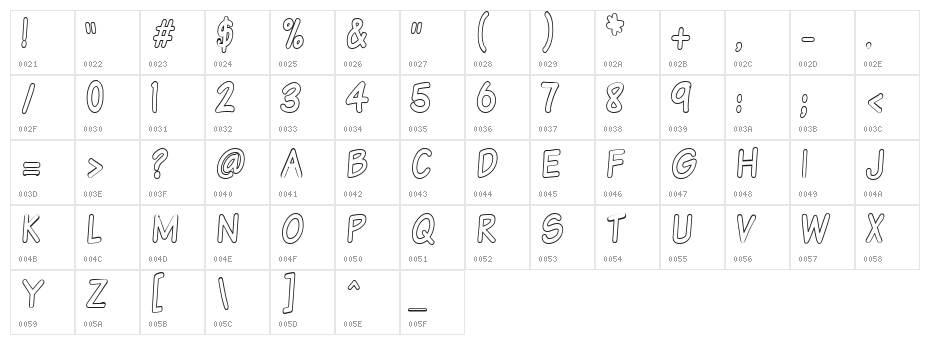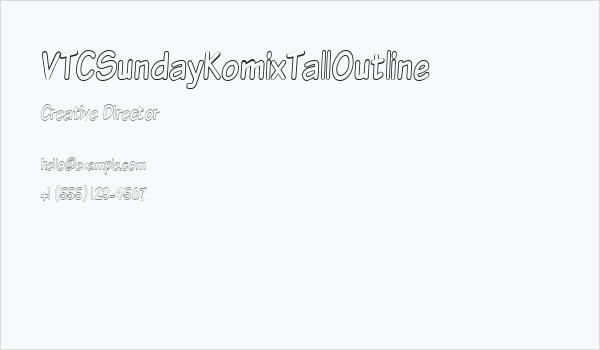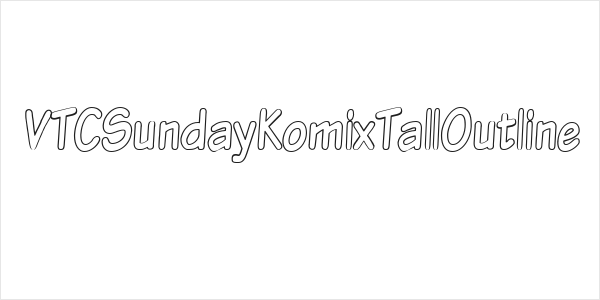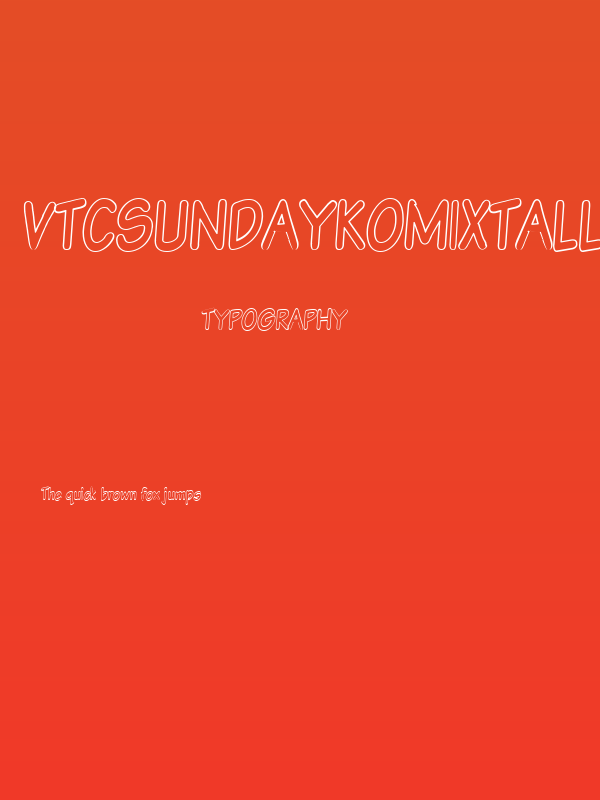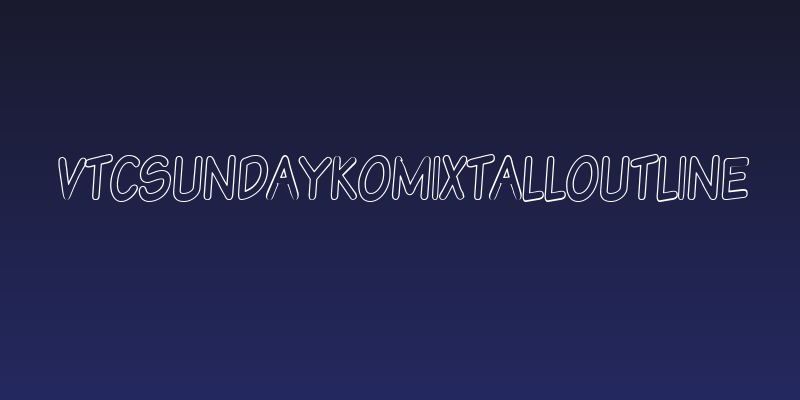
VTCSundayKomixTallOutline Font
VTCSundayKomixTallOutline Description
This playful and bold font features an outline style that gives it a comic-like appearance. The characters are tall and slightly condensed, with rounded edges that add a friendly and approachable feel. The uppercase and lowercase letters maintain a consistent style, with a slight slant that adds a dynamic touch. The numbers and special characters are designed to match the overall aesthetic, making the font versatile for various uses. Its unique outline design makes it stand out, perfect for projects that require a fun and engaging look.
| Overall Style | Playful, Comic |
| Proposed Projects | Ideal for comic books, children's books, playful branding, posters, and creative advertising. |